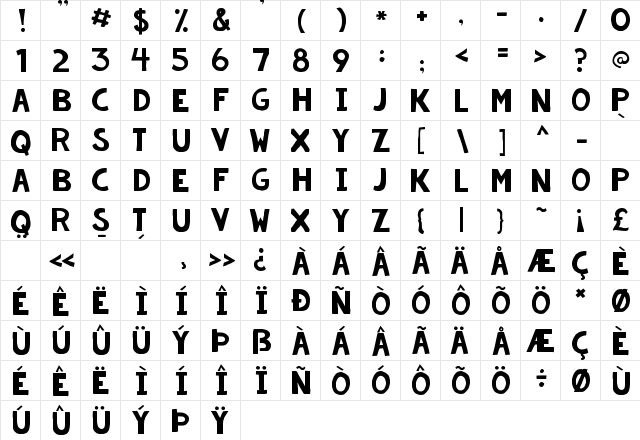
KG Summer Storm Rough Regular
Design Context for KG Summer Storm Rough Typeface
KG Summer Storm Rough embraces imperfection — its rough, textured character adds raw authenticity to designs that want to feel lived-in and unconventional.
A strong fit for alternative music projects, graffiti-adjacent design, and anything that deliberately resists polish.
Pro Tip: Use KG Summer Storm Rough at larger sizes where the texture and irregularity of each letterform can be clearly seen — it loses its character at small sizes.